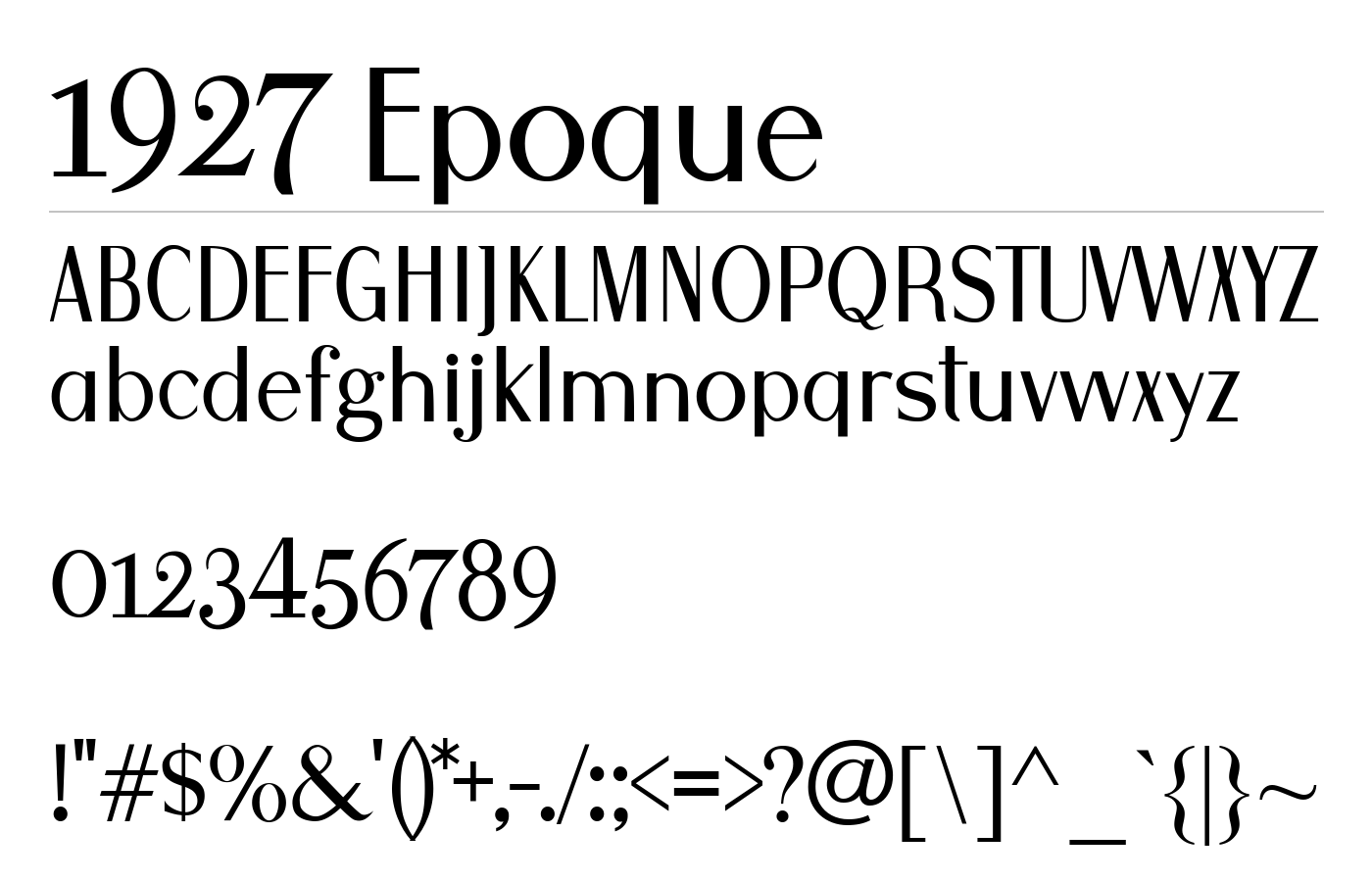
1927 Epoque is a refined serif font with a tall, elegant posture and moderate contrast between thick and thin strokes, giving it a sophisticated yet approachable feel. Its narrow letterforms and distinctive details, like the curved and sharp terminals, evoke a vintage charm suited for luxury branding, editorial headlines, and stylish packaging. This font works beautifully where a touch of classic elegance combined with a clean, modern edge is desired.
1927 Epoque Font
About 1927 Epoque Font